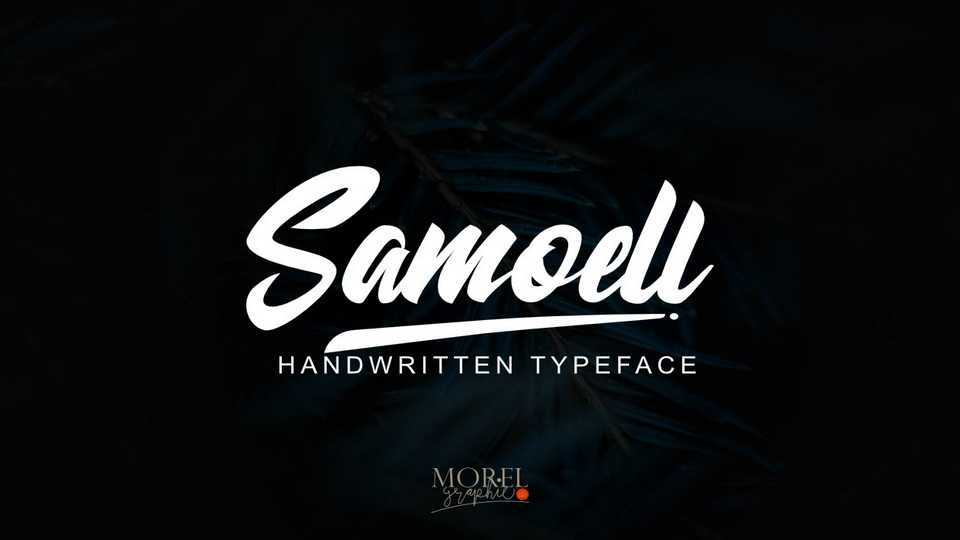
Download Samoell font, a classy handwritten brush script typeface. Samoell is great for use in logo and branding, quote, packaging, t-shirt print, posters and more.
Designer: Morel Graphic